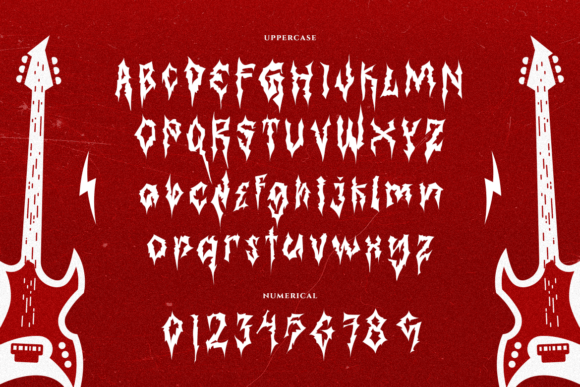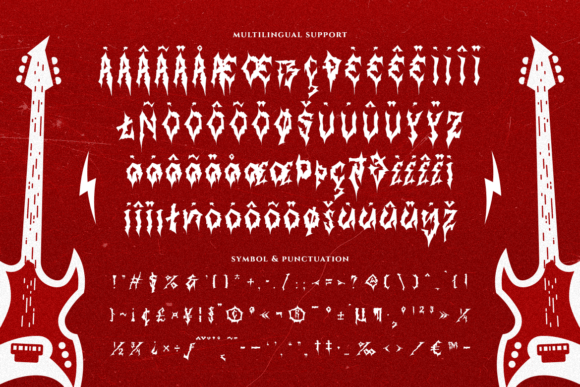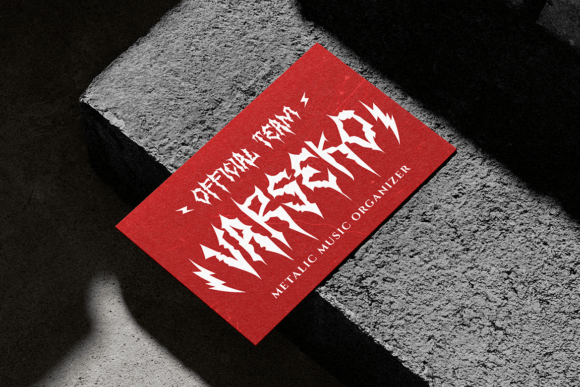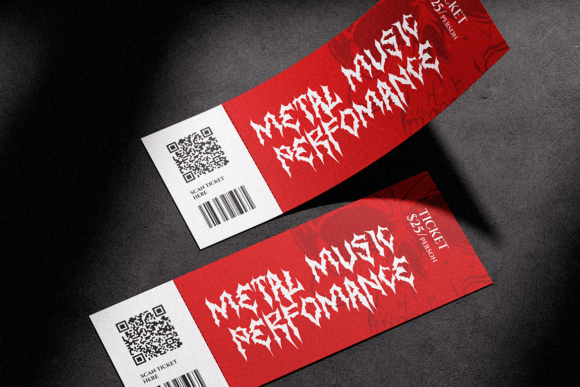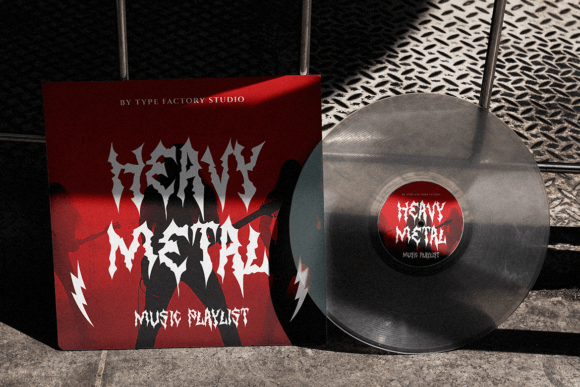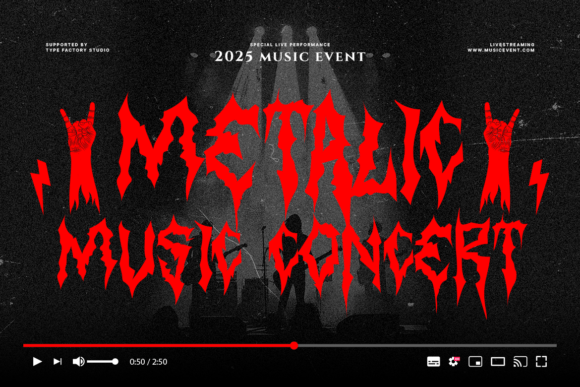
Introduction to Langschlafer Font
Imagine you’re in the middle of a creative project, and you need the perfect font to give it that raw, edgy feel. You’re scrolling through design resources, searching for the perfect display typeface to elevate your project from good to great. And then, you stumble upon Langschlafer Font – a game-changing font that’s about to take your design to the next level.
Langschlafer Font is more than just a font – it’s an experience. With its sharp, aggressive design and dramatic silhouettes, this typeface is the perfect fit for music posters, band logos, concert flyers, and album covers. But what makes Langschlafer Font truly special is its high-quality design and transparent background, making it a valuable resource for designers who want to create stunning visuals without the hassle of complex backgrounds.
Key Features of Langschlafer Font
- High-quality typography: The Langschlafer Font is designed with precision and care, making it a valuable resource for any creative project.
- Transparent background: The Langschlafer Font features a transparent background, allowing for seamless integration into any design or project.
- High-resolution design: The Langschlafer Font is designed at a high resolution, making it suitable for use in a variety of creative projects, from print to digital media.
- Unique character set: The font features a unique character set, including a range of special characters and symbols, making it an excellent choice for designers who want to add a touch of personality to their work.
Honest Review: Langschlafer Font
As a designer, I’m always on the lookout for high-quality fonts that can elevate my creative projects. Recently, I stumbled upon the Langschlafer Font, and I’m excited to share my thoughts with you.
What works well: ✨ The Langschlafer Font is a stunning example of Germanic script font design, perfect for adding a touch of elegance to your projects. The font is highly versatile, suitable for a wide range of creative applications, from book titles to logo designs. I appreciate the fact that it comes with a transparent background, making it easy to layer with other design elements.
What doesn’t work so well: ⚠️ While the Langschlafer Font is free to download, it’s essential to note that it may not be the most comprehensive font family. Some users might find the font lacking in terms of additional weights and styles. Additionally, the font’s design, although beautiful, may not be suitable for all types of projects.
Overall impression: I’m impressed with the Langschlafer Font’s high quality and design excellence. It’s an excellent design resource for anyone looking to add a touch of sophistication to their creative projects. While it may have some limitations, it’s an excellent starting point for designers seeking a high-quality, free font.
- Not the most comprehensive font family
The Langschlafer Font is a high-quality design resource ideal for creative projects that require a unique and sophisticated look. This free download is perfect for designers and artists looking for a versatile font that can be used in various applications.